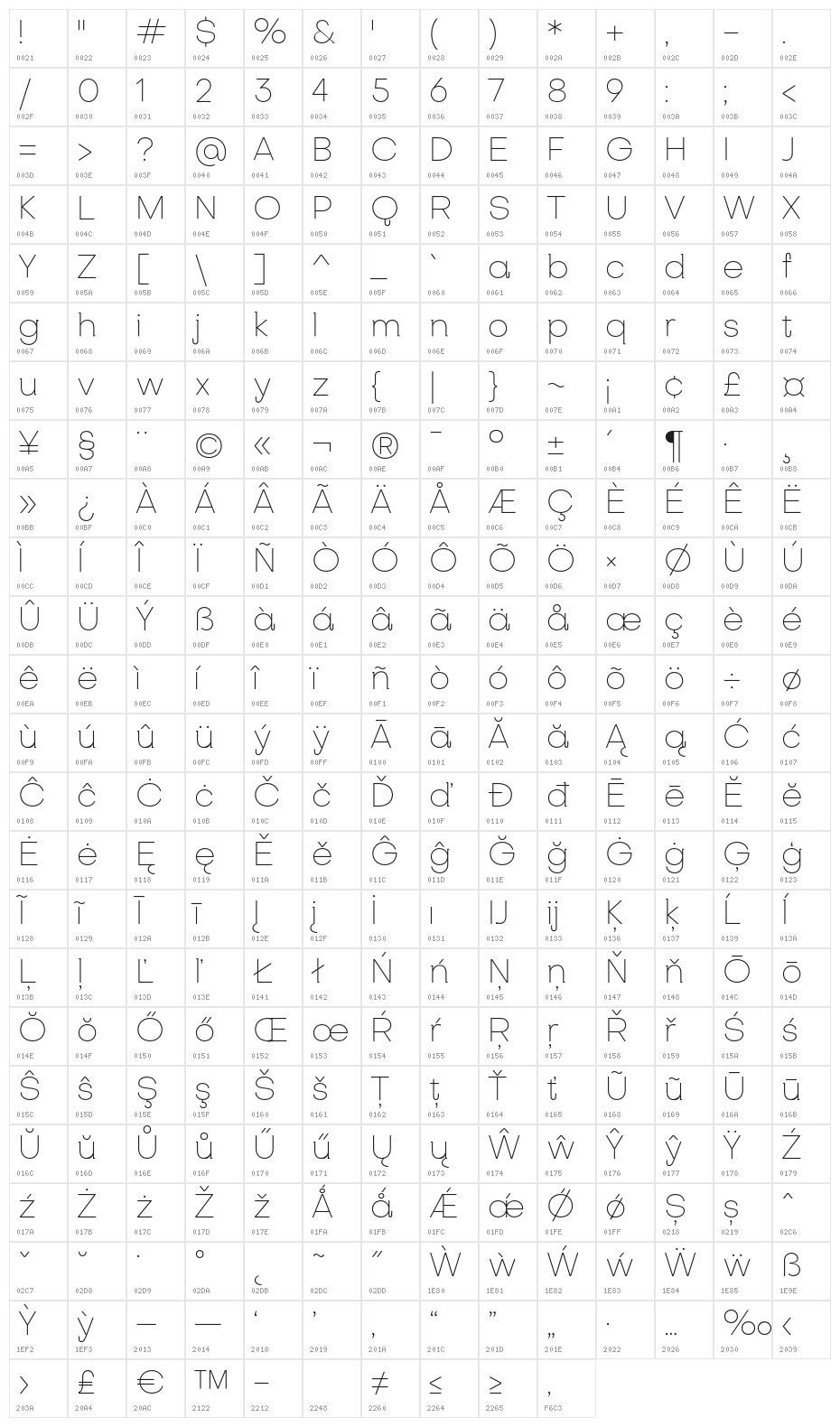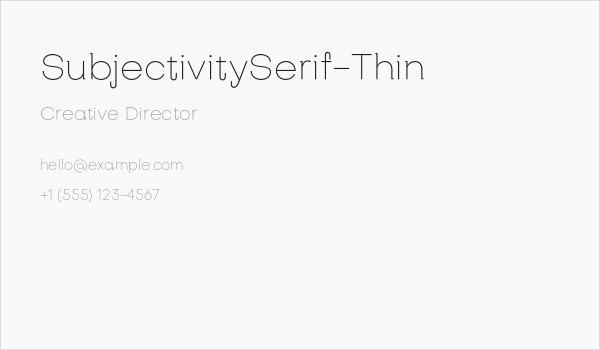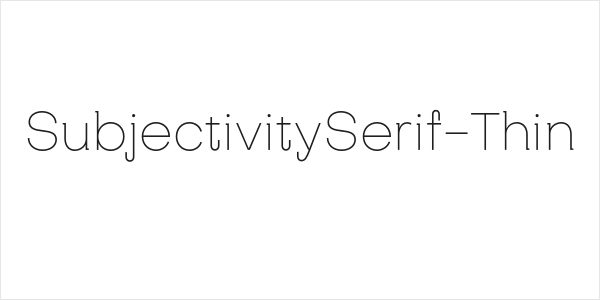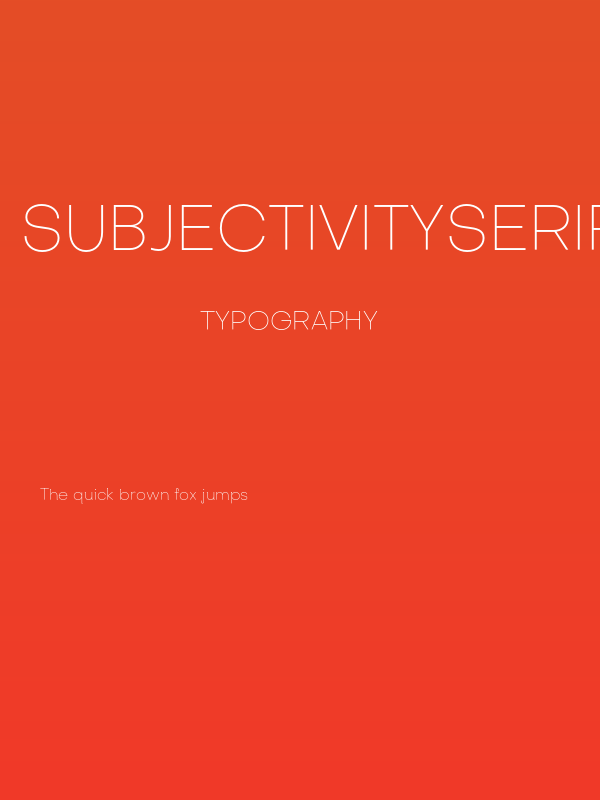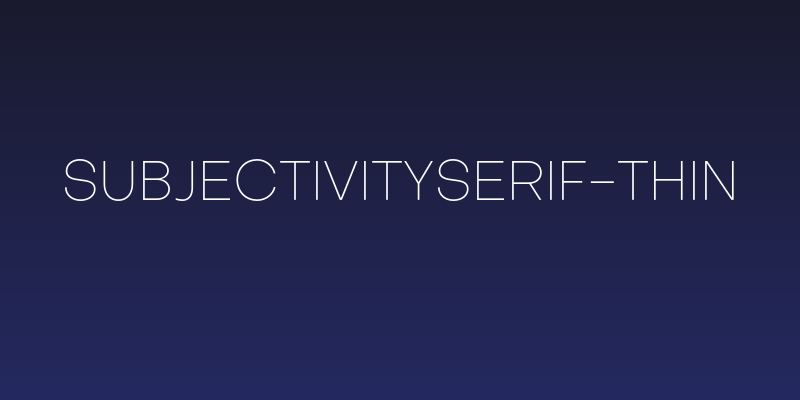
SubjectivitySerif-Thin Font
SubjectivitySerif-Thin Description
This font features a clean and minimalist design with thin, elegant lines that convey a sense of modernity and sophistication. The characters are well-proportioned, with a consistent stroke width that enhances readability. The uppercase letters are tall and commanding, while the lowercase letters maintain a balanced and approachable appearance. The numerals are clear and distinct, making them suitable for various applications. Special characters are included, adding versatility to the font's use. Overall, this font exudes a contemporary and refined aesthetic, making it ideal for projects that require a sleek and polished look.